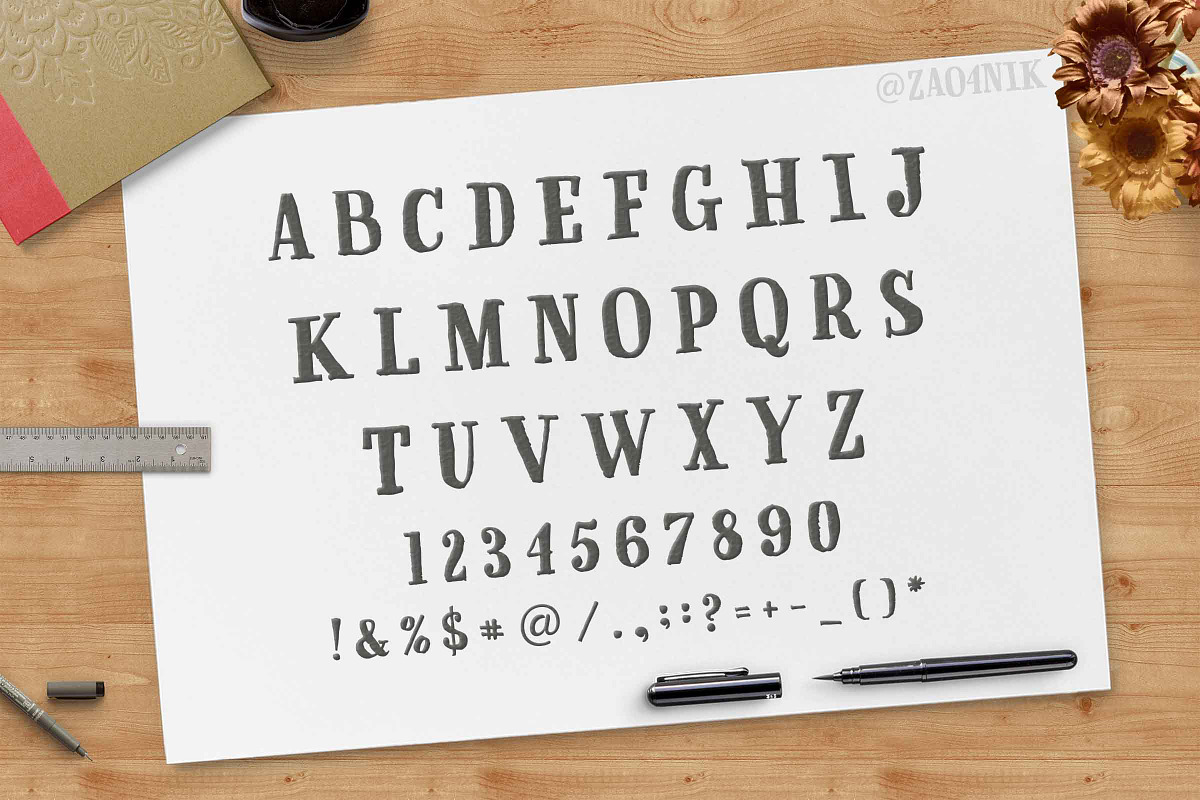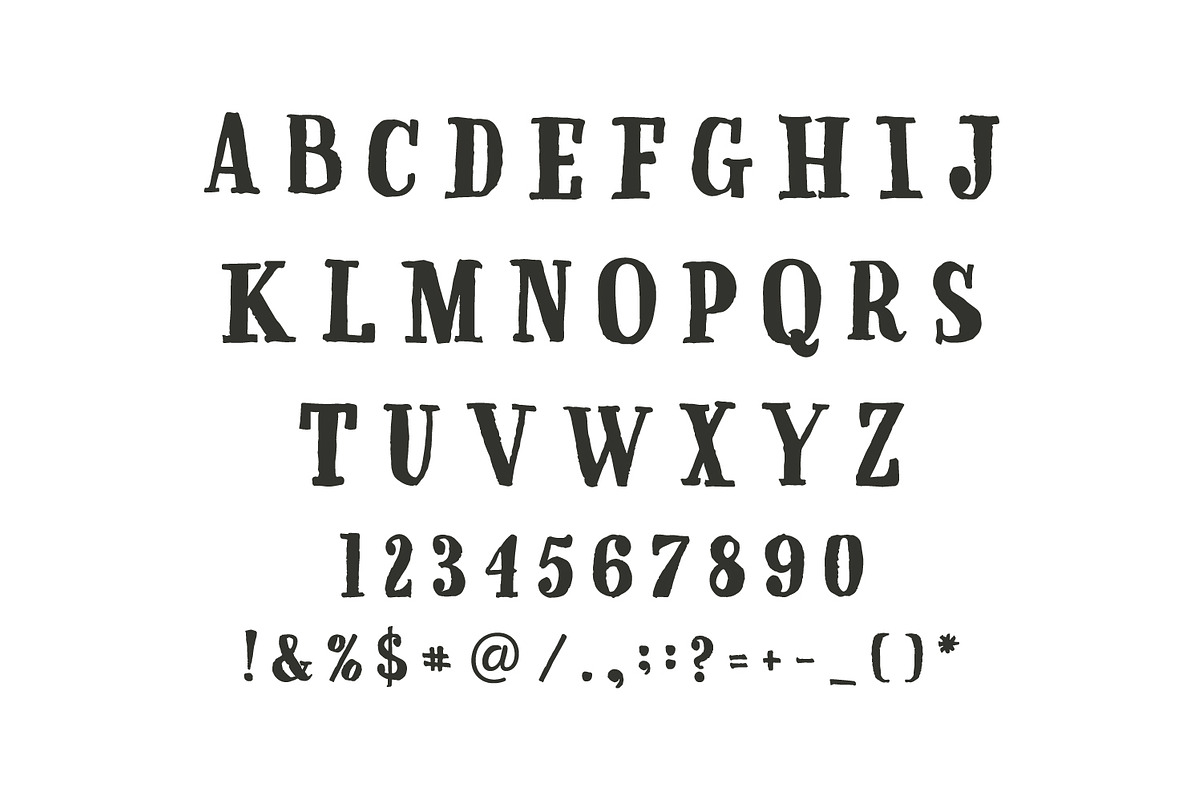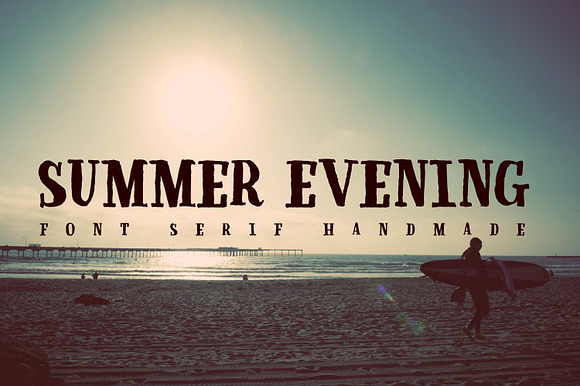
Hi guys! I created a new font. This is a drawn serif font.
You can use it anywhere in your design.
- Summer evening Regular
Font Serif 50% discount by zao4nik fits naturally into Branding, posters, packaging, typography.